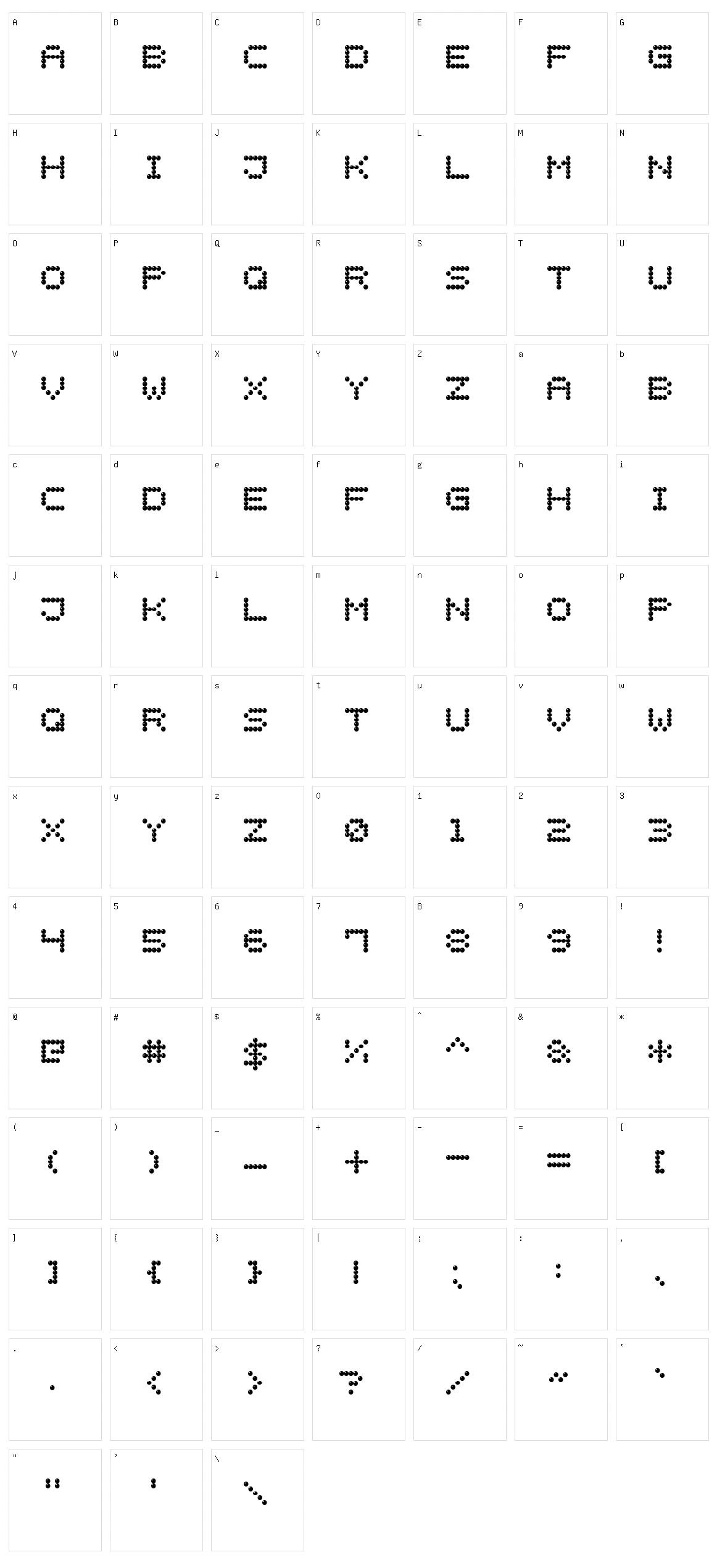
Light LED Display-7
Designed by: Style-7
This is original font like a LED (Light Emitting Diode) display. Latin and Cyrillic code pages are supported.